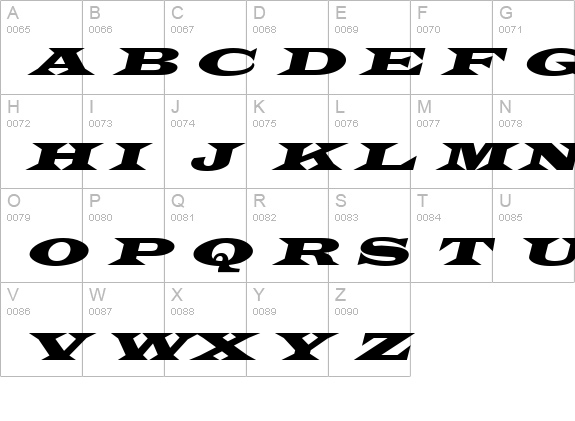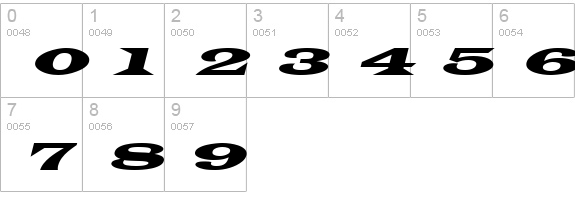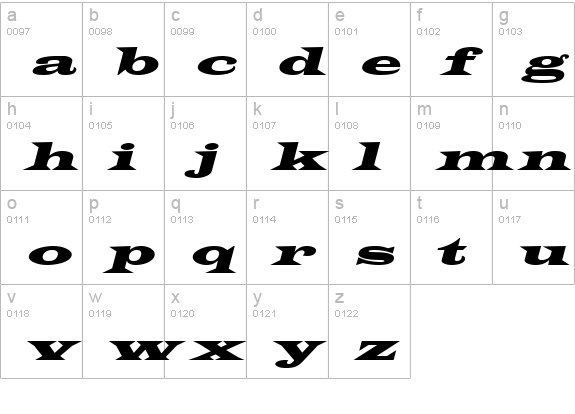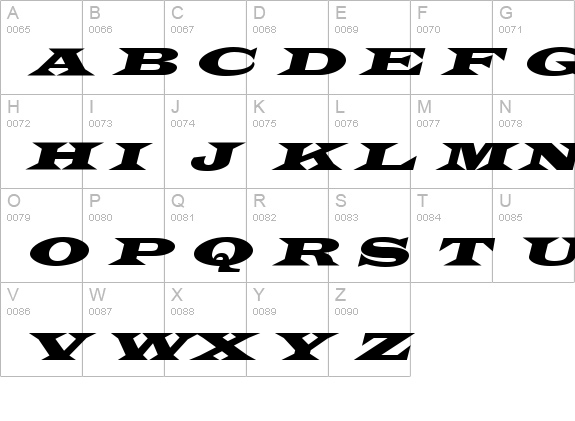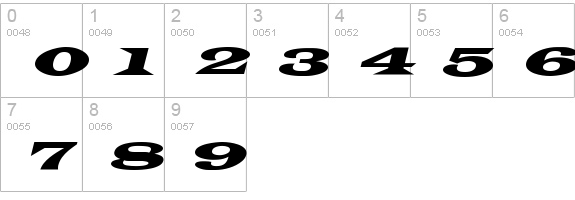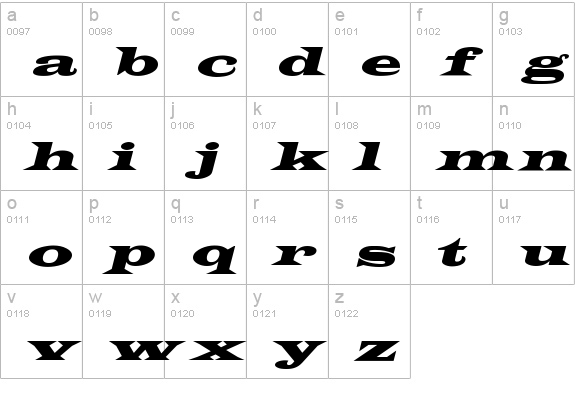
Latin WideExtObl Normal Font Details
Latin WideExtObl Normal is the standard, neutral variant in the Latin typeface family \xE2\x80\x94 well suited to general body text, paragraphs, and standard typographic work.
Latin WideExtObl Normal is a visually stunning font that effortlessly combines elegance and modernity. Its wide extended characters and unique design make it perfect for a variety of creative projects. Whether you are designing a logo, crafting a poster, or creating eye-catching headlines, this font is sure to make a bold statement. With its clean lines and sleek curves, Latin WideExtObl Normal exudes a sense of sophistication and professionalism. Its versatility allows it to be used in both formal and informal settings, making it a must-have for graphic designers, artists, and typographers alike. What sets Latin WideExtObl Normal apart is that it is not only visually striking, but it is also freely available to download at FontsMarket.com. This means that you can easily incorporate this font into your work without any additional cost or hassle. Whether you are a professional designer or a hobbyist, having access to high-quality fonts like Latin WideExtObl Normal can greatly enhance your projects and help you stand out from the crowd. So why wait? Add Latin WideExtObl Normal to your font collection today and unleash your creativity like never before. With its unique style and its availability as a free download at FontsMarket.com, this font is a valuable asset for anyone in need of a visually captivating and versatile typeface.